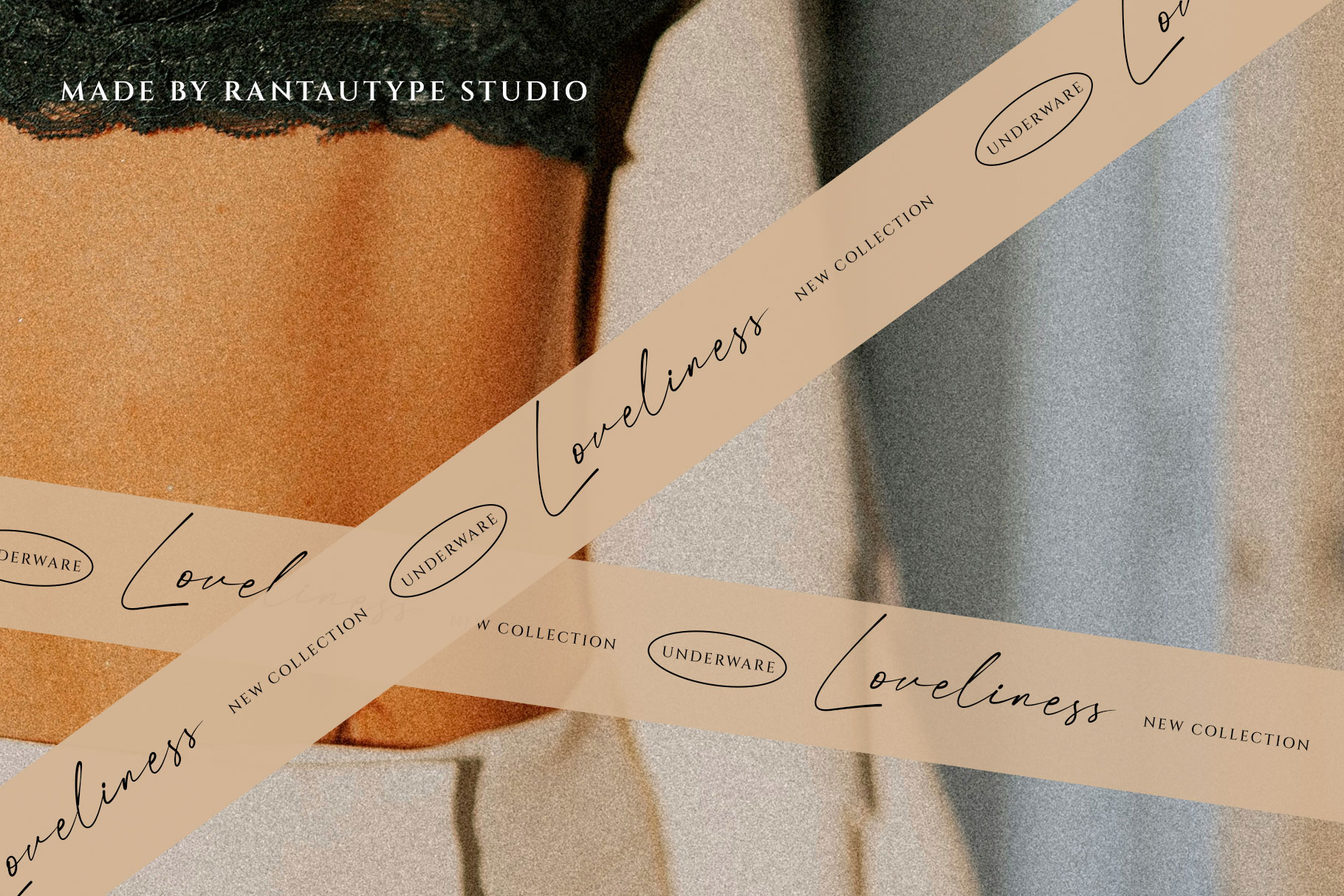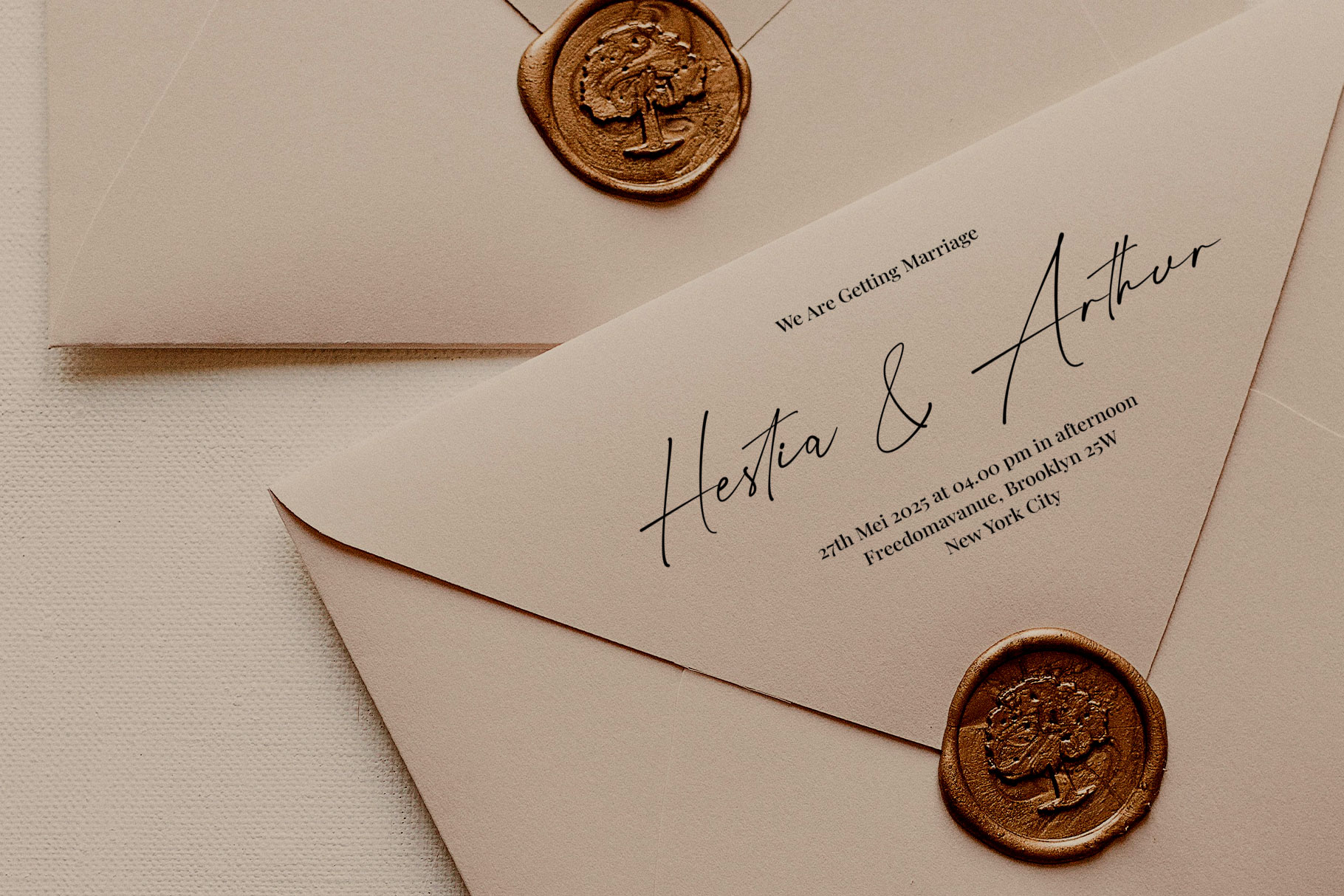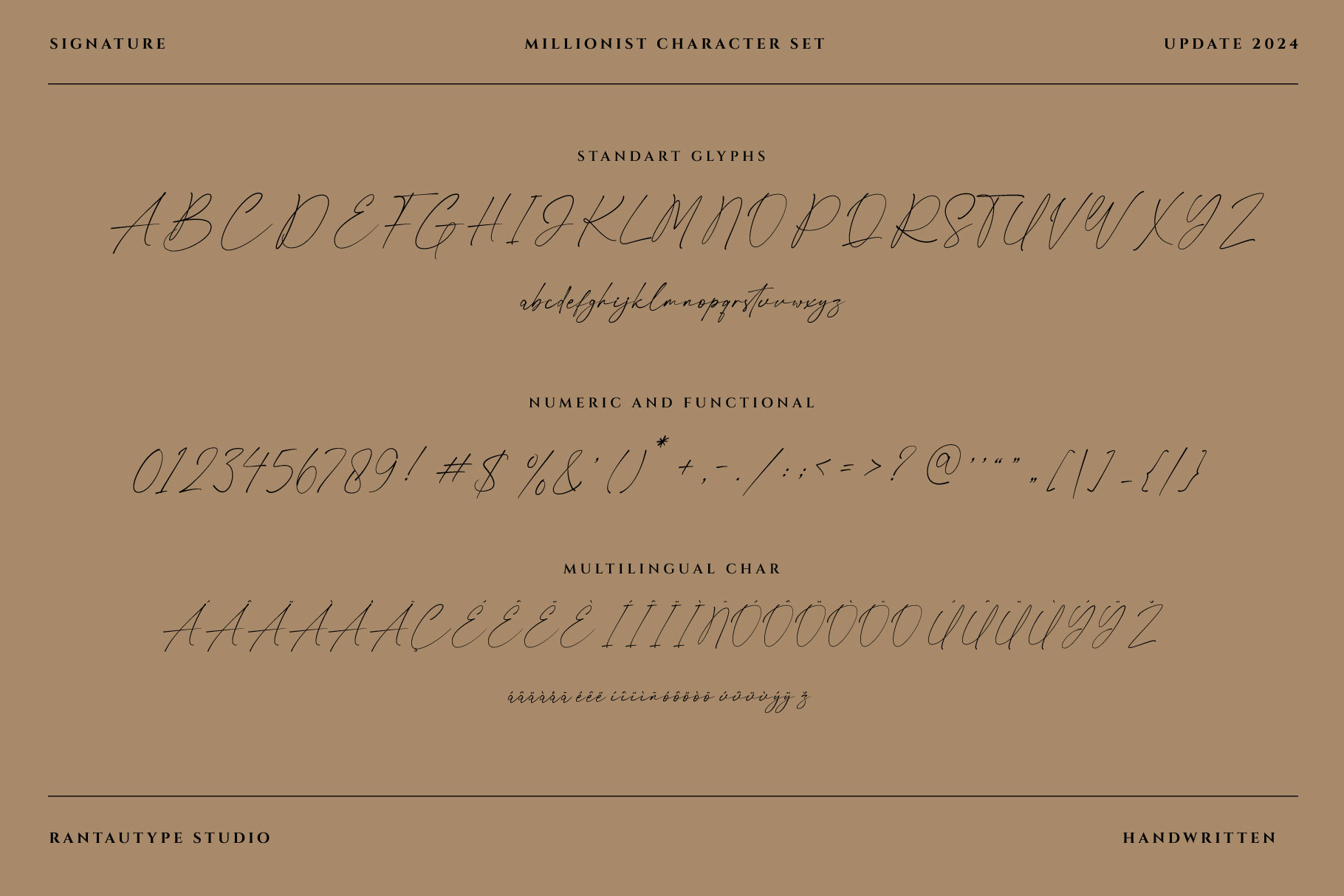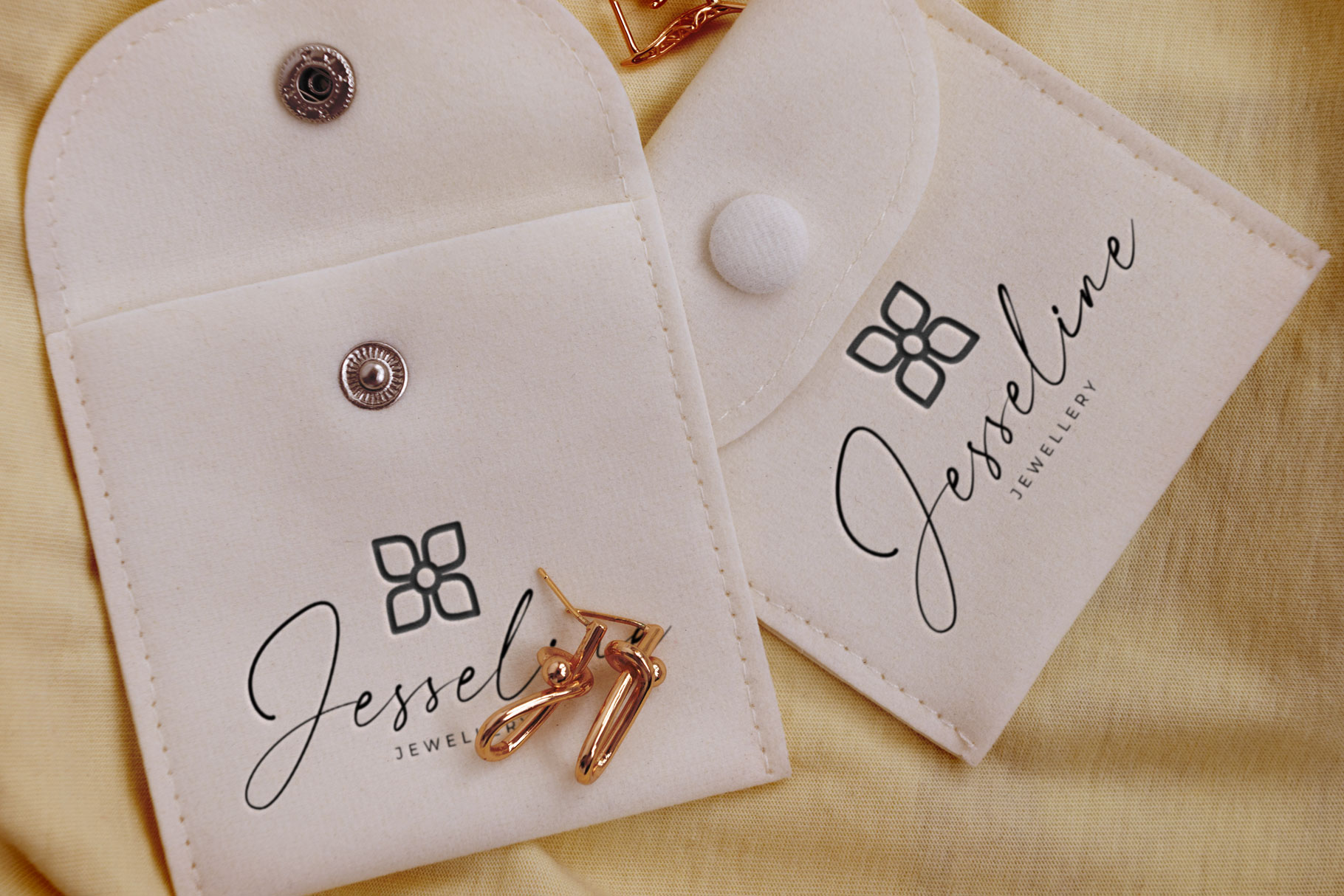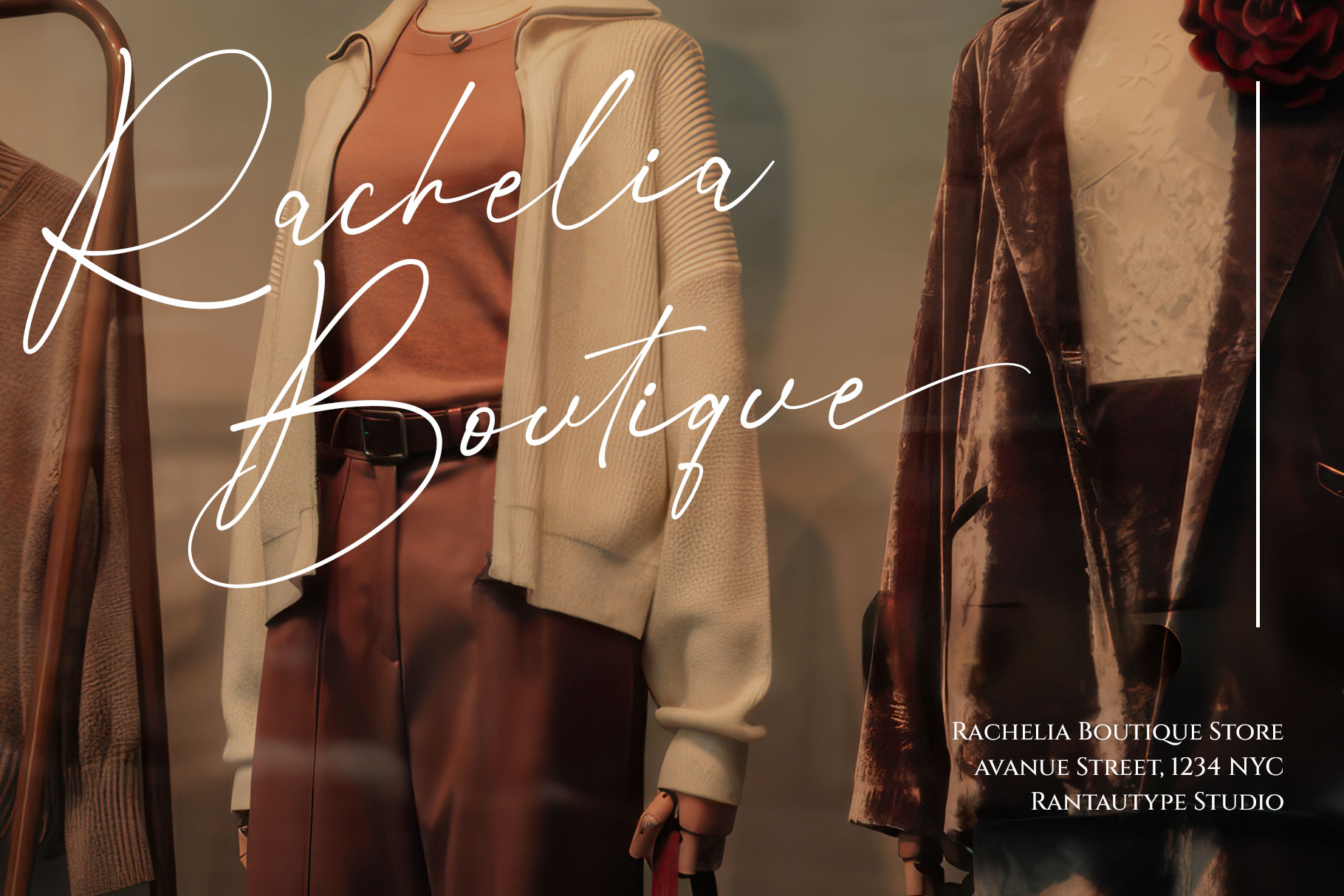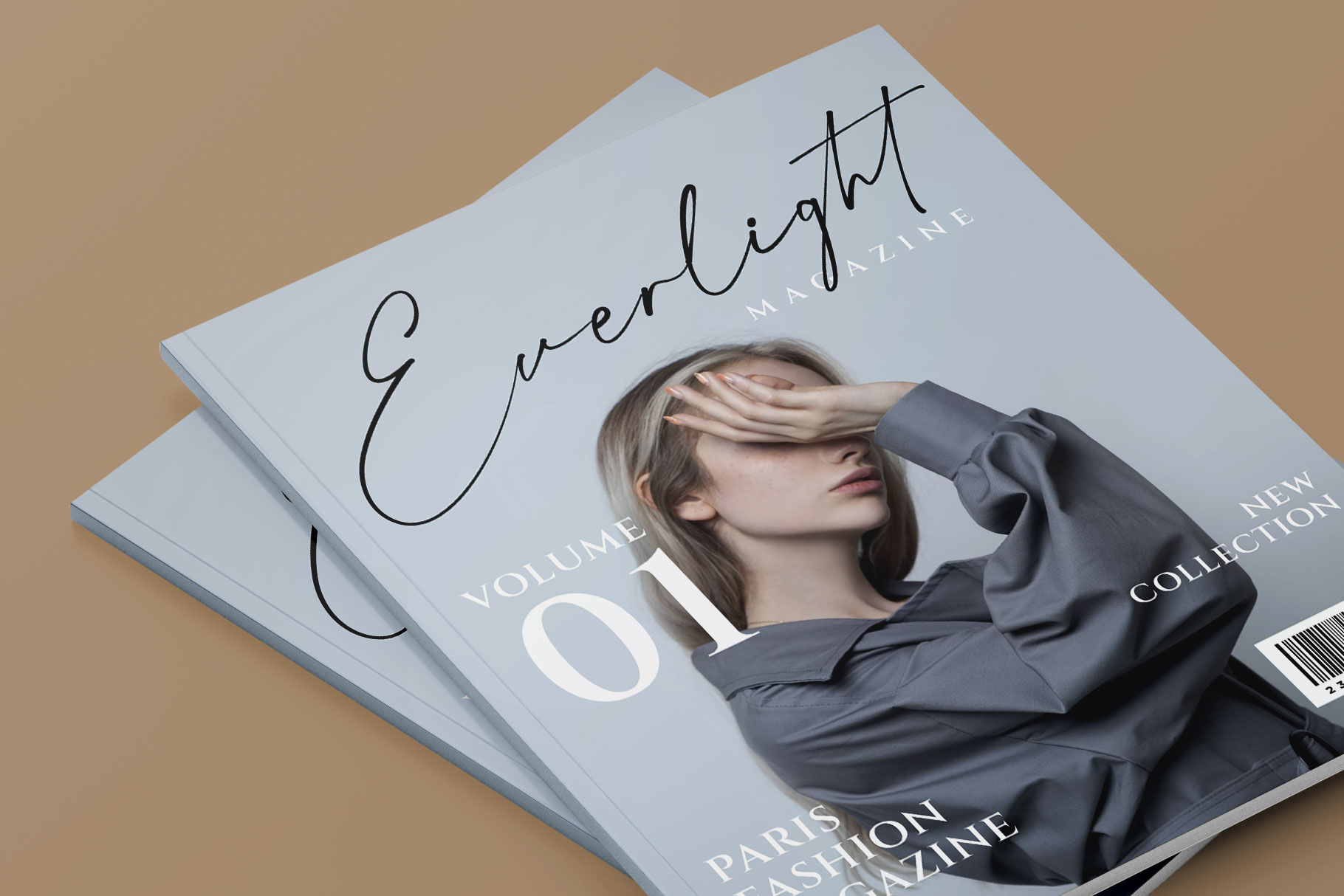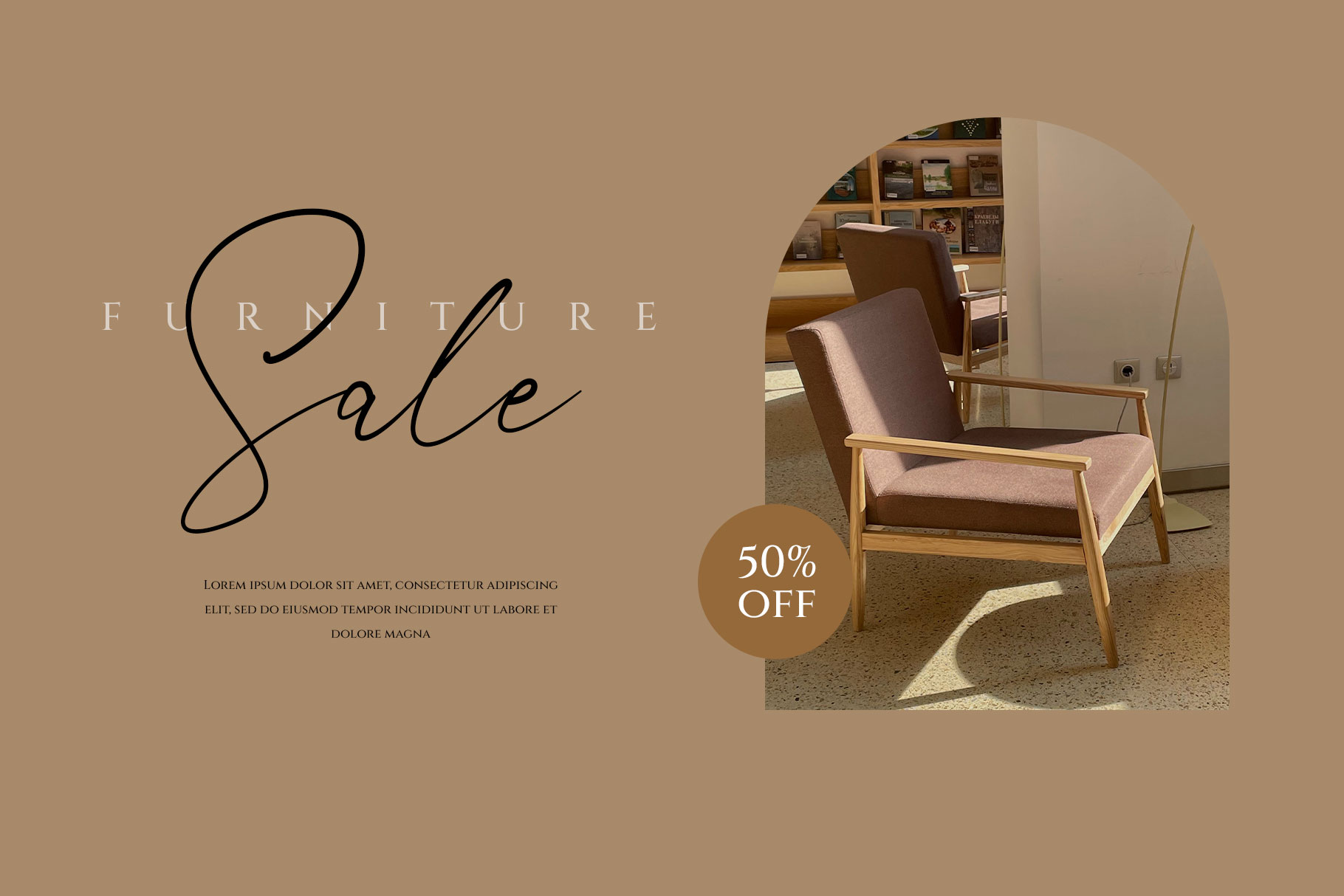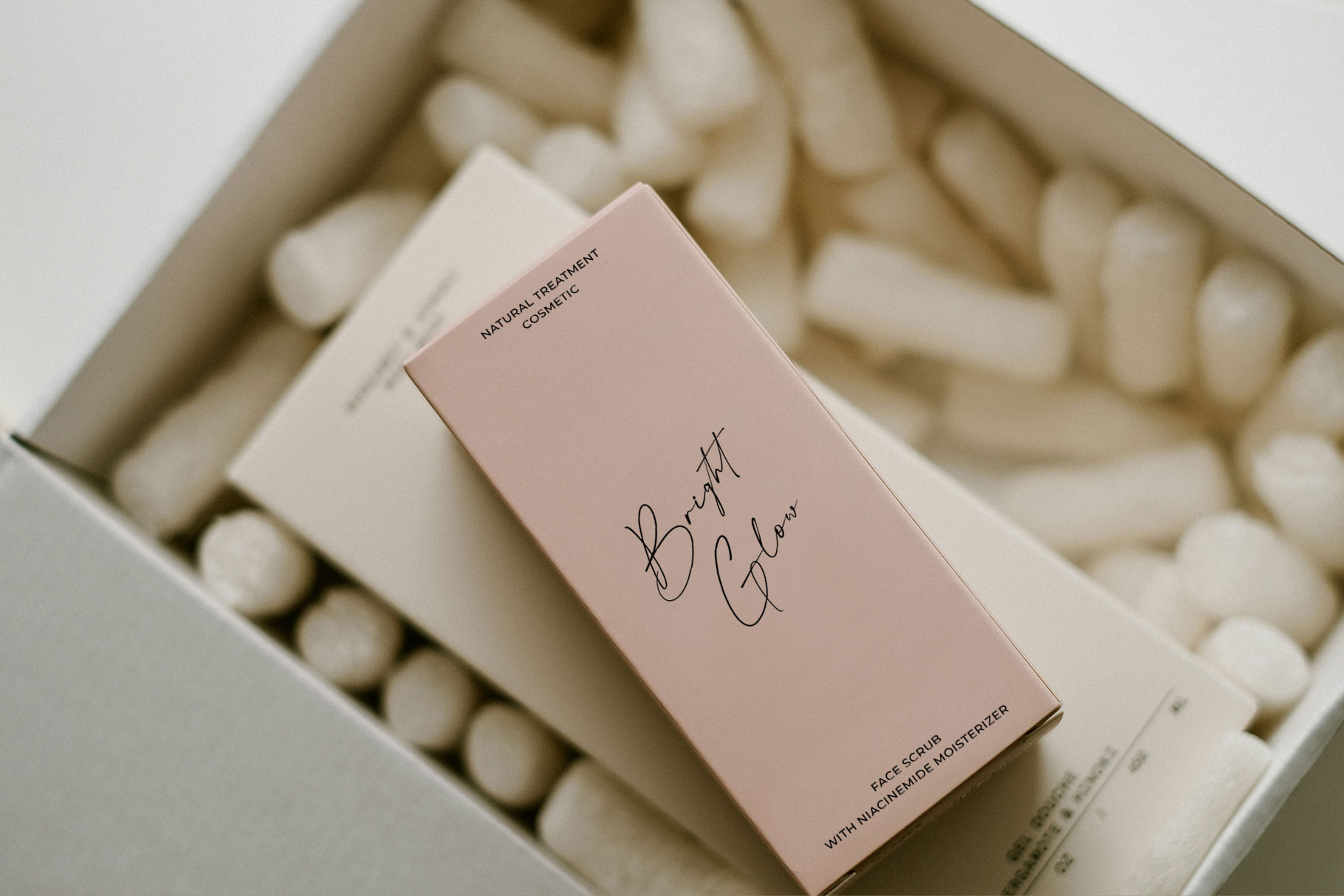
Millionist Elegant Signature Font
Millionist is elegant style font embrace grace and sophisticated which can be interpreted professional. we keep this font looks elegant, luxury, premium, modern, readable, stylish, feminine, girly, catchy and easy to use.
Millionist is a perfectly choice for any creative endeavor, chic, lifestyle design such as logos, advertisements, watermark on photography, stationery, branding project, display and magazine, invitation, corporate brand, product design, label, business project and other project with handwritten taste.